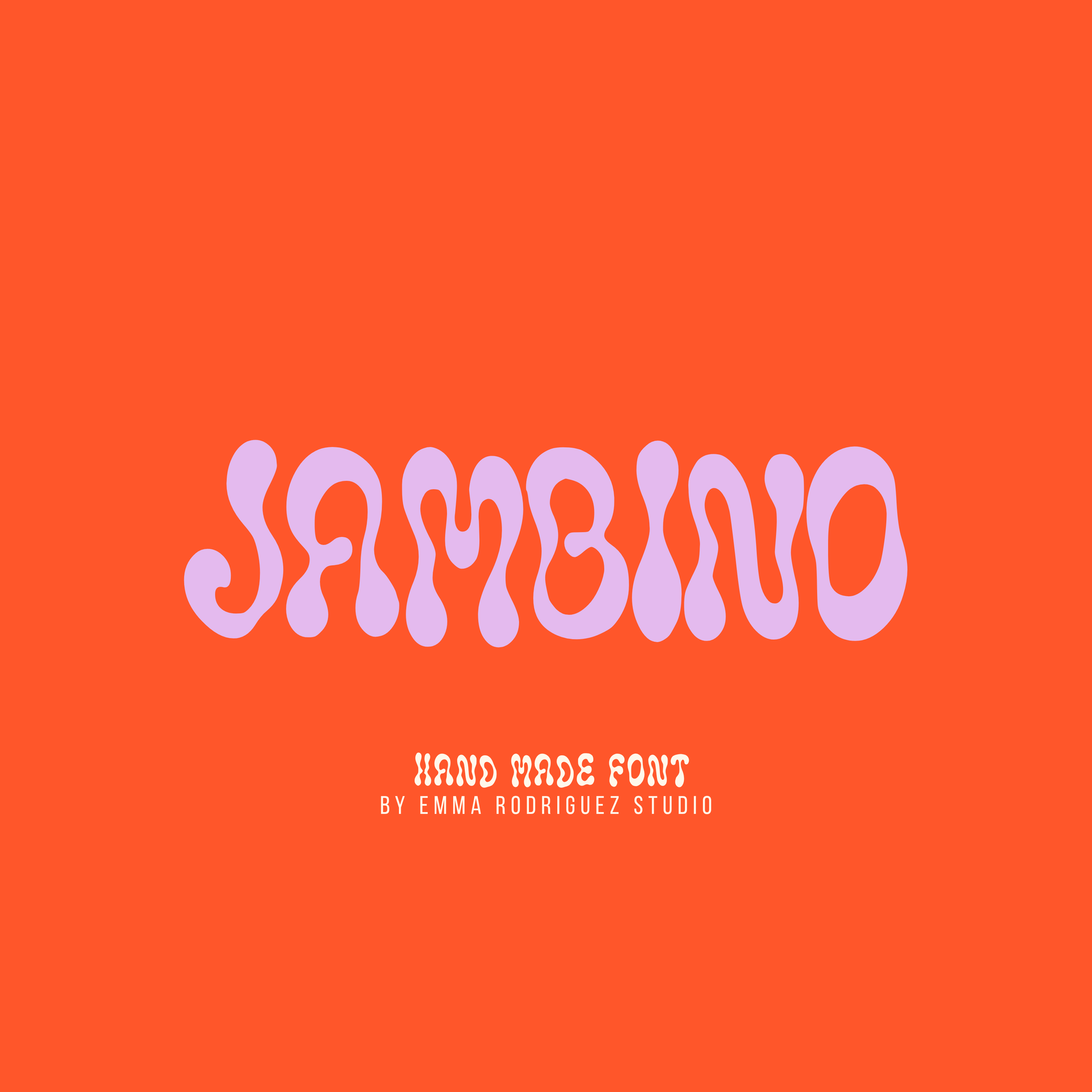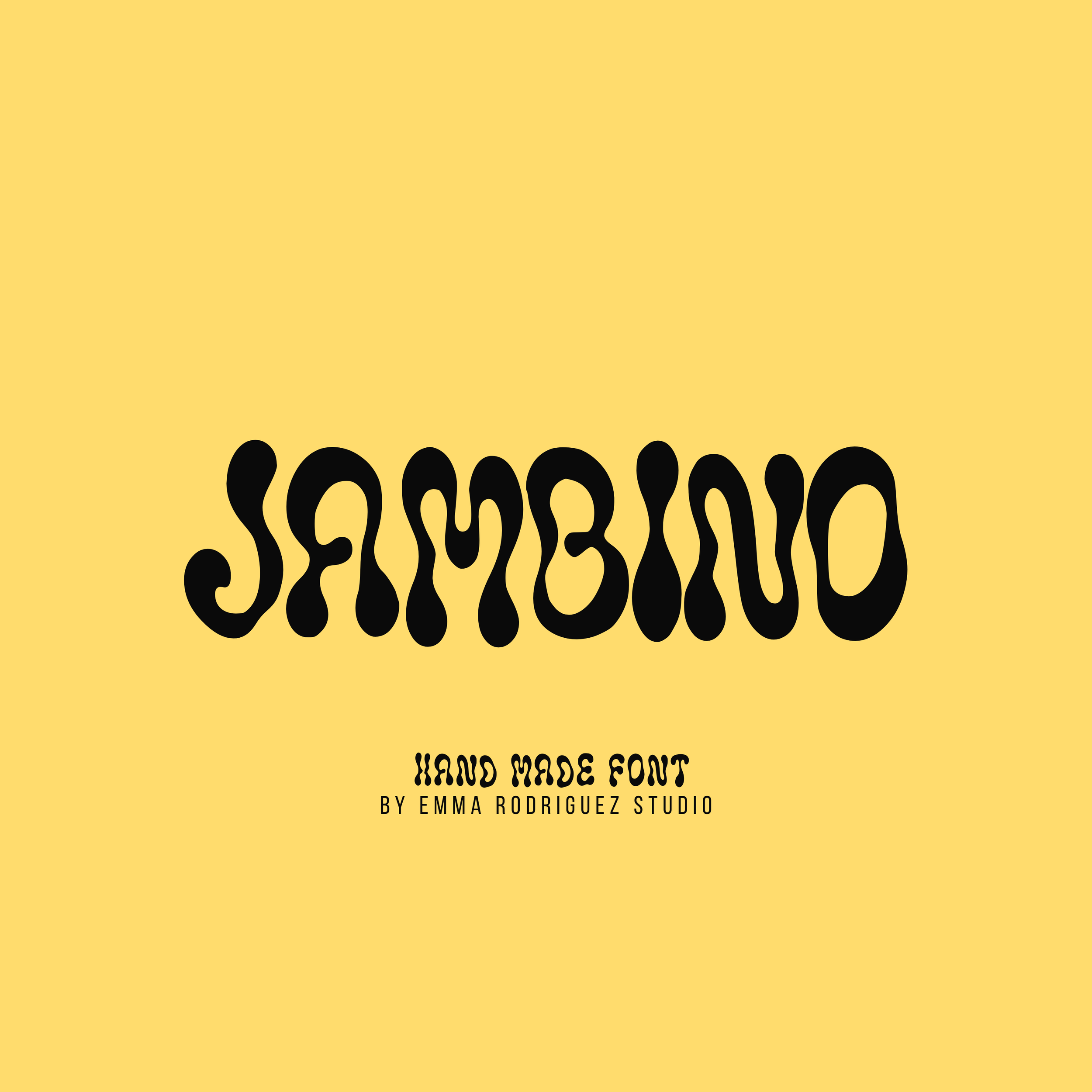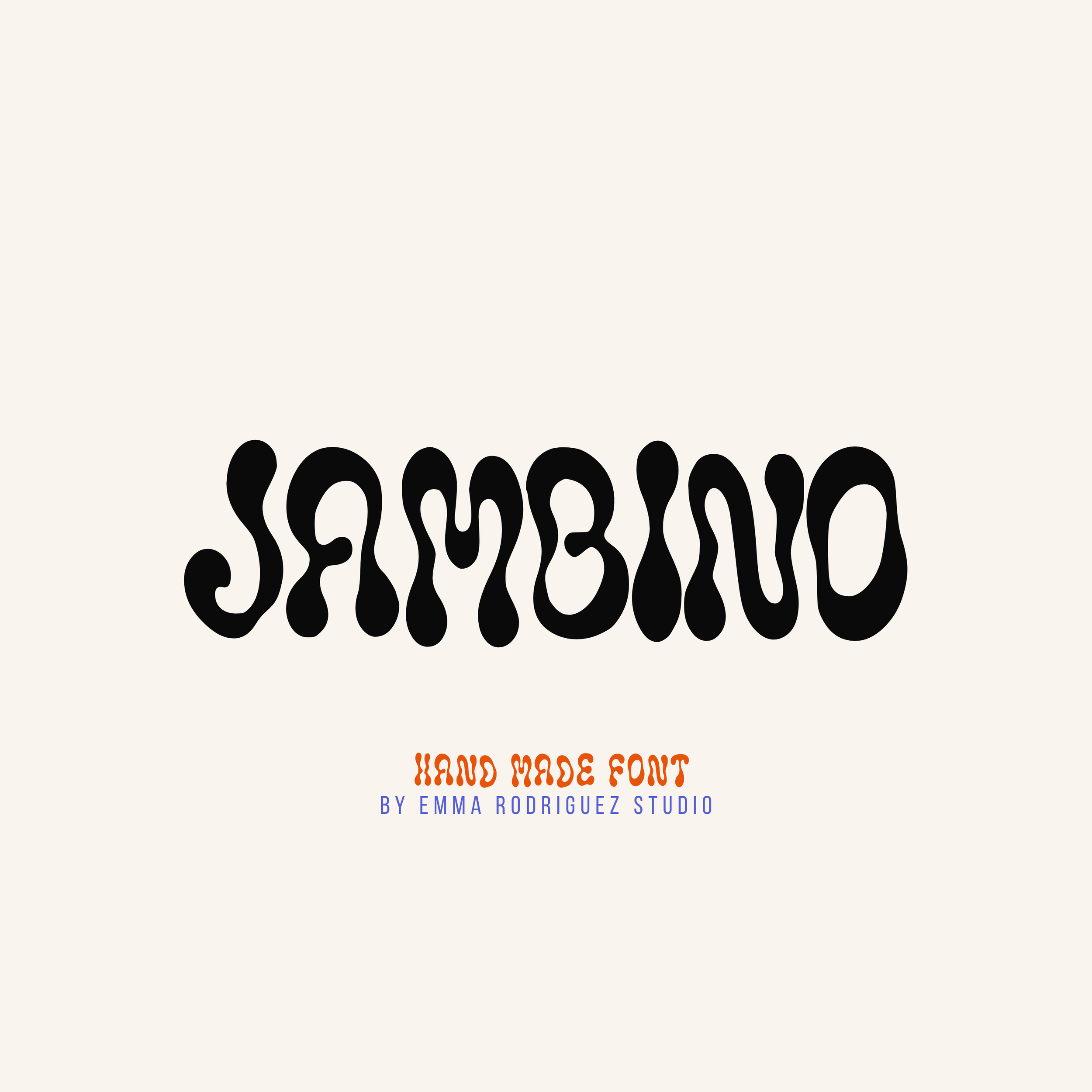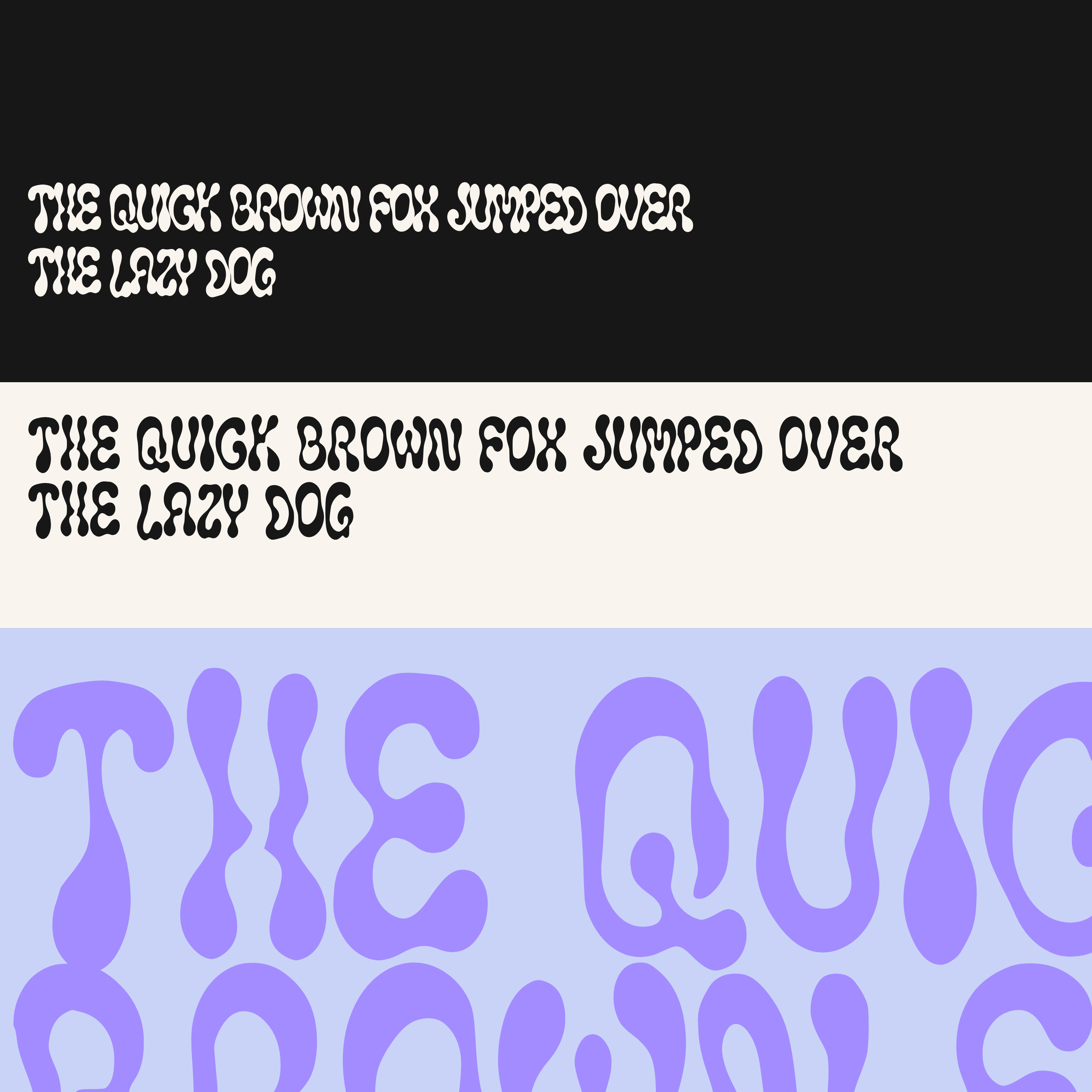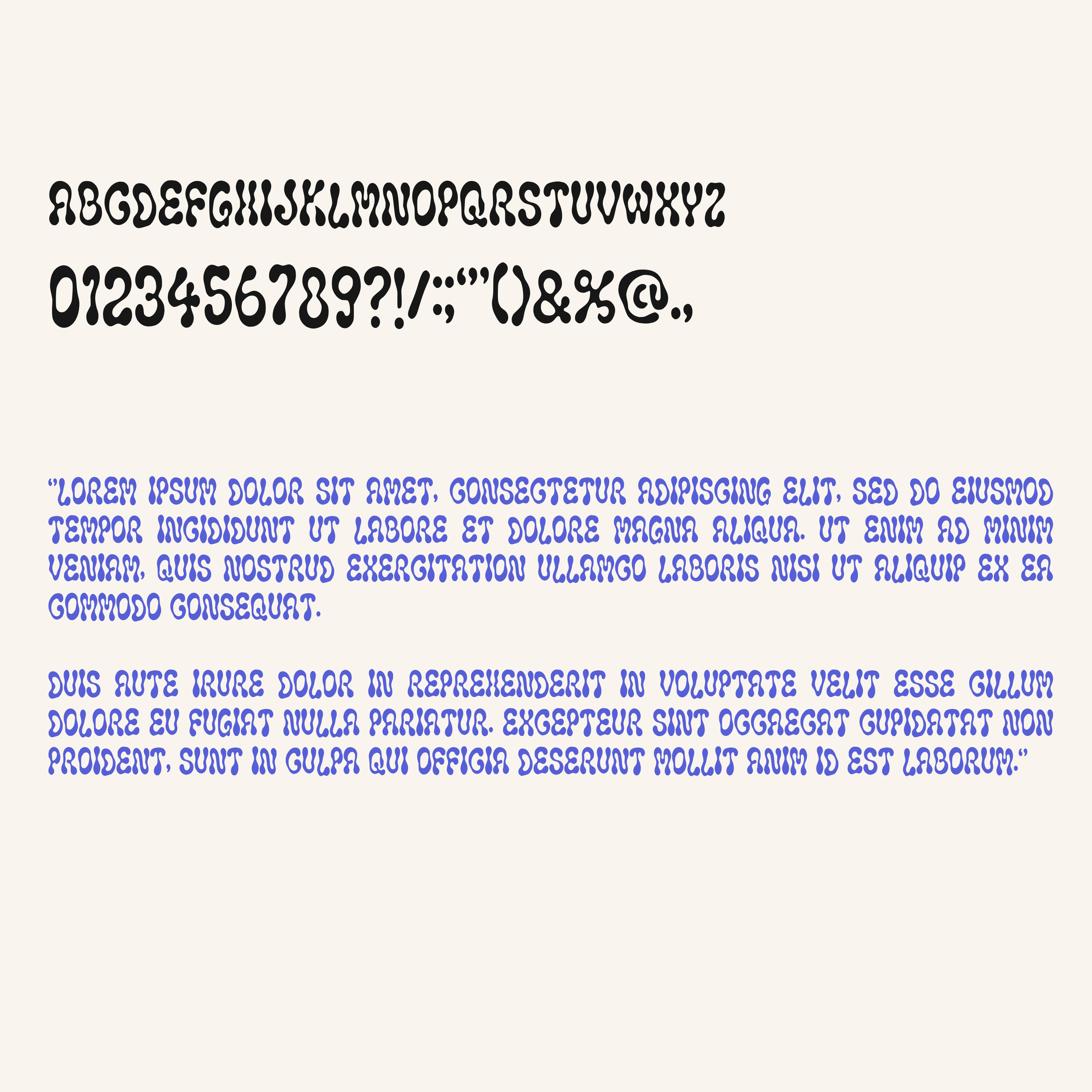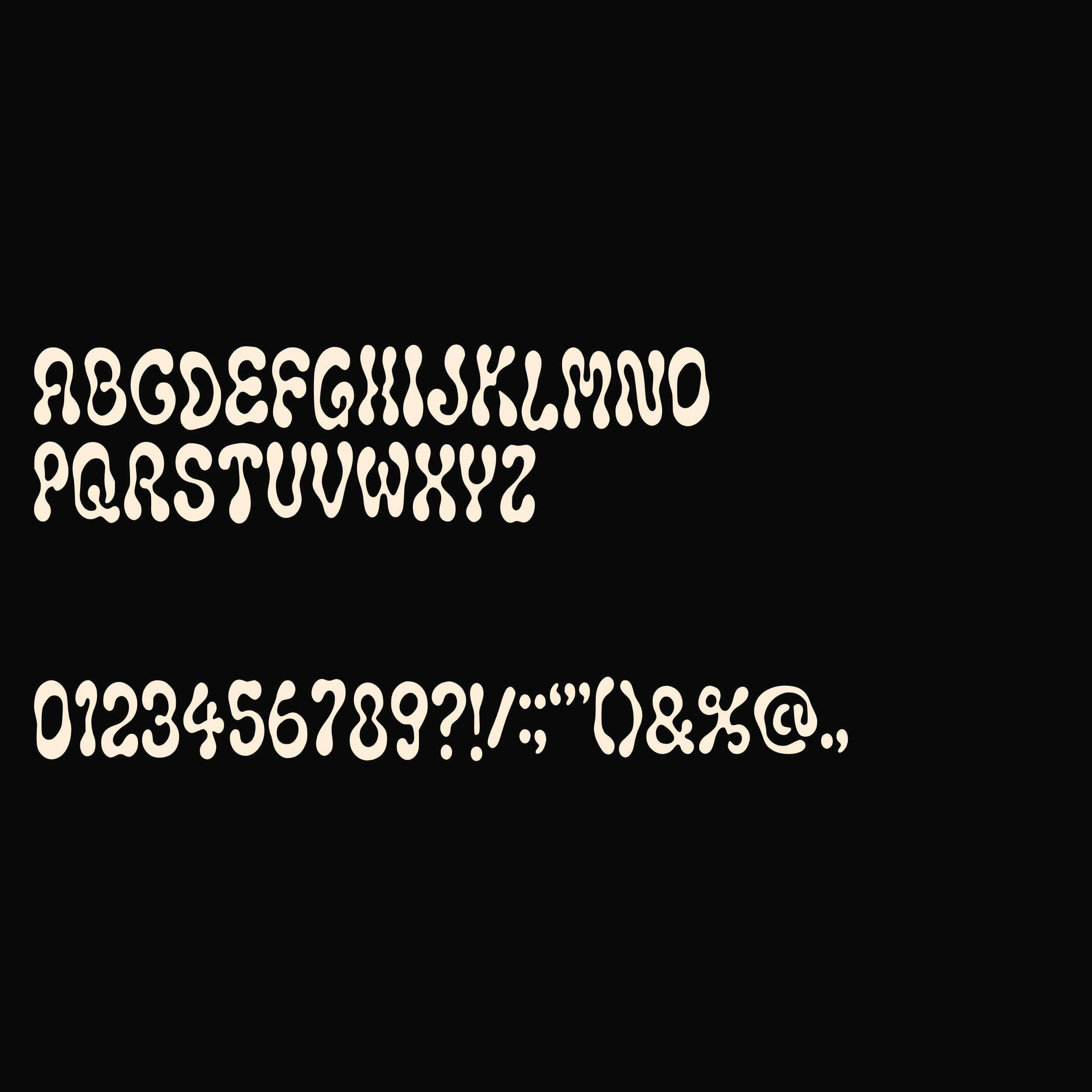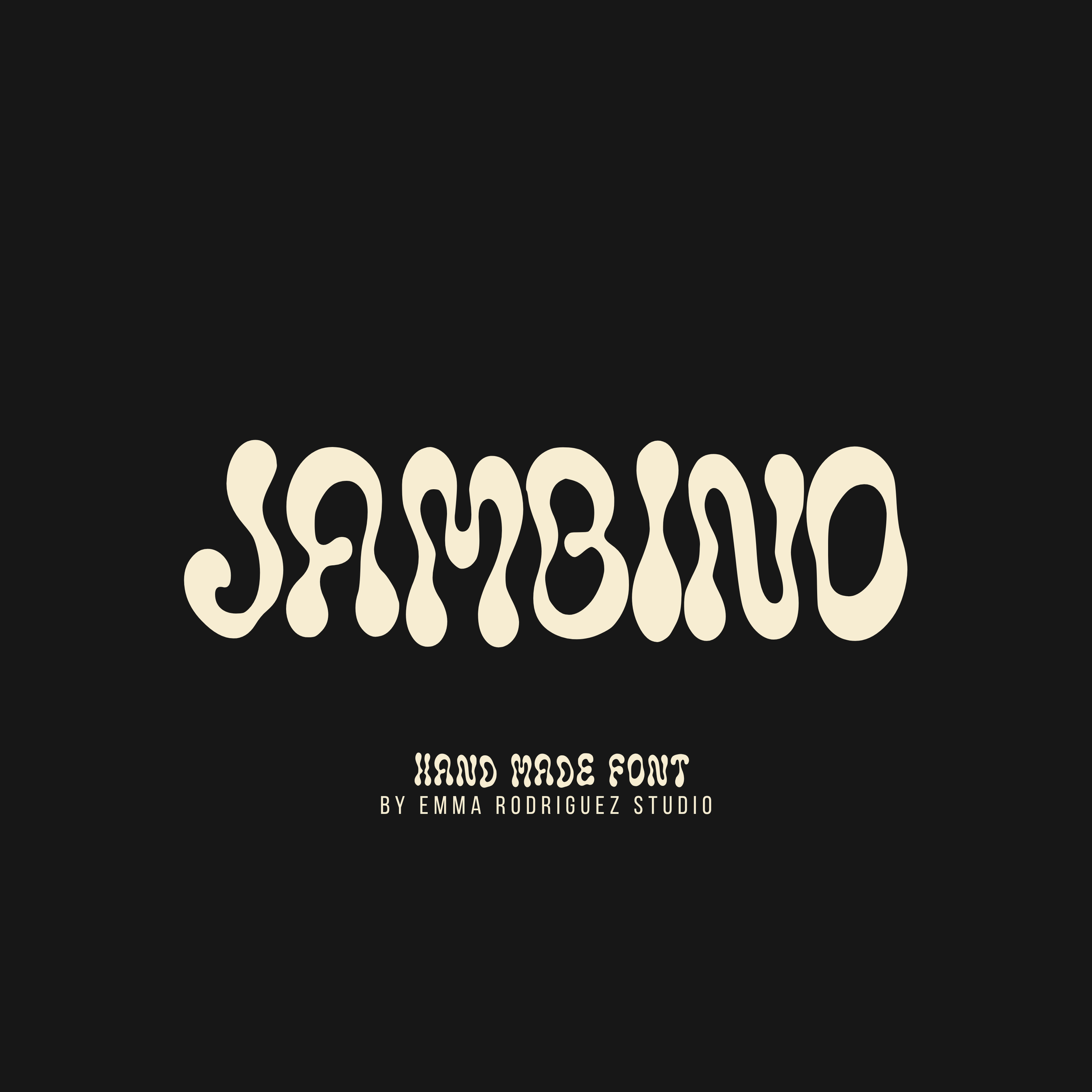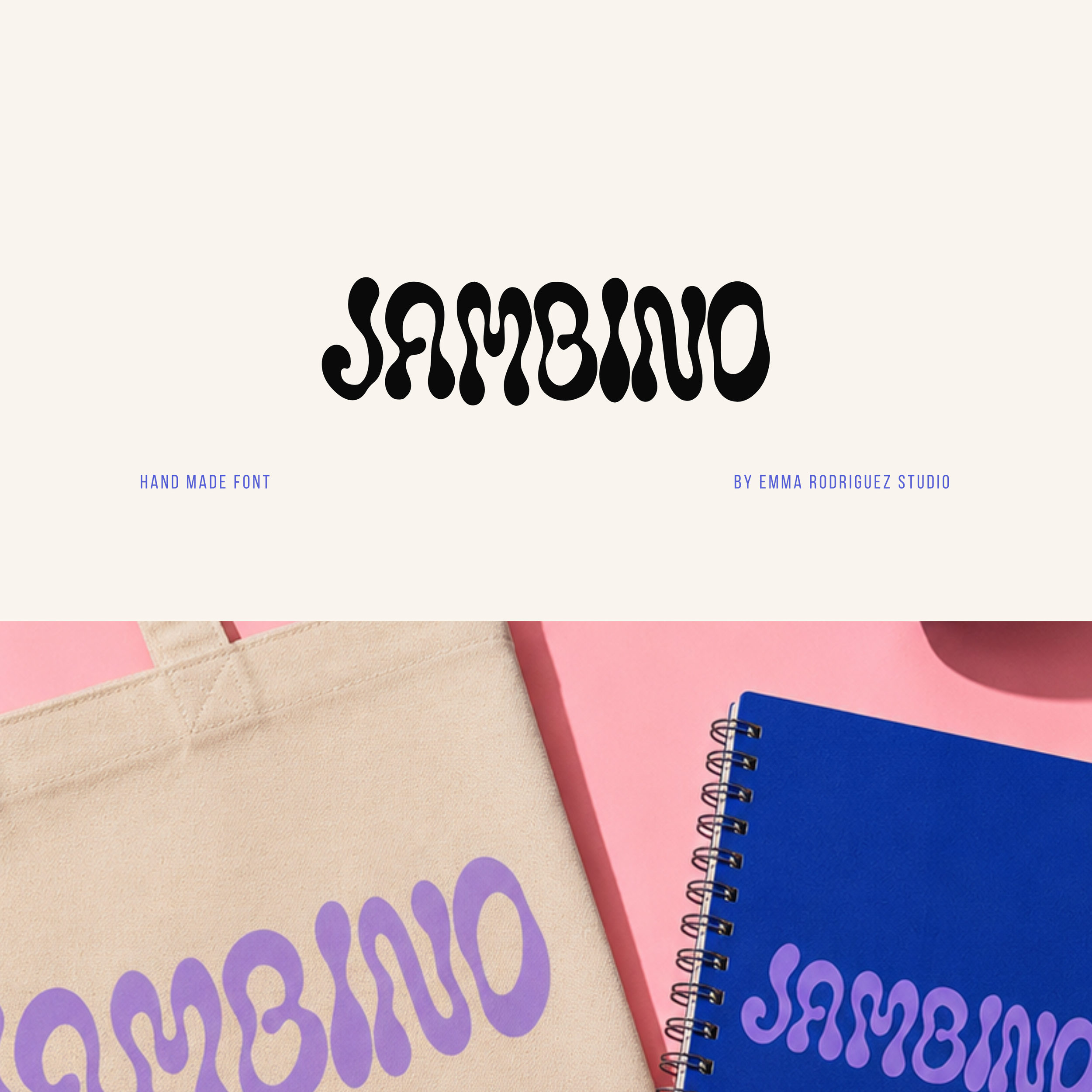
Jambino Font - Retro Wavy Type
Meet Jambino, a bold psychedelic display font inspired by 70s lettering, lava lamp graphics, vintage music posters, and playful bubble typography. Its flowing curves, exaggerated shapes, and soft organic forms create typography that feels energetic, nostalgic, and impossible to ignore.
Every letter bends and stretches with its own rhythm, giving your designs a relaxed, hand drawn feel that's full of movement and personality. While playful, the font remains highly readable, making it just as effective for branding as it is for bold headlines and creative graphics.
Jambino is perfect for graphic designers, illustrators, artists, branding studios, content creators, and small businesses looking for typography that feels expressive, retro, and full of character.
Whether you're creating logos, posters, packaging, apparel, album artwork, stickers, or social media graphics, Jambino instantly brings warmth, fun, and a touch of vintage nostalgia.
• Uppercase letters
• Numbers and basic punctuation
The exaggerated curves and organic letterforms are intentional design features that give the font its distinctive psychedelic style.
Perfect for:
• Branding and logos
• Posters and prints
• Album artwork
• Packaging design
• Apparel and merchandise
• Sticker designs
• Editorial layouts
• Social media graphics
• Small business branding
• Creative client work